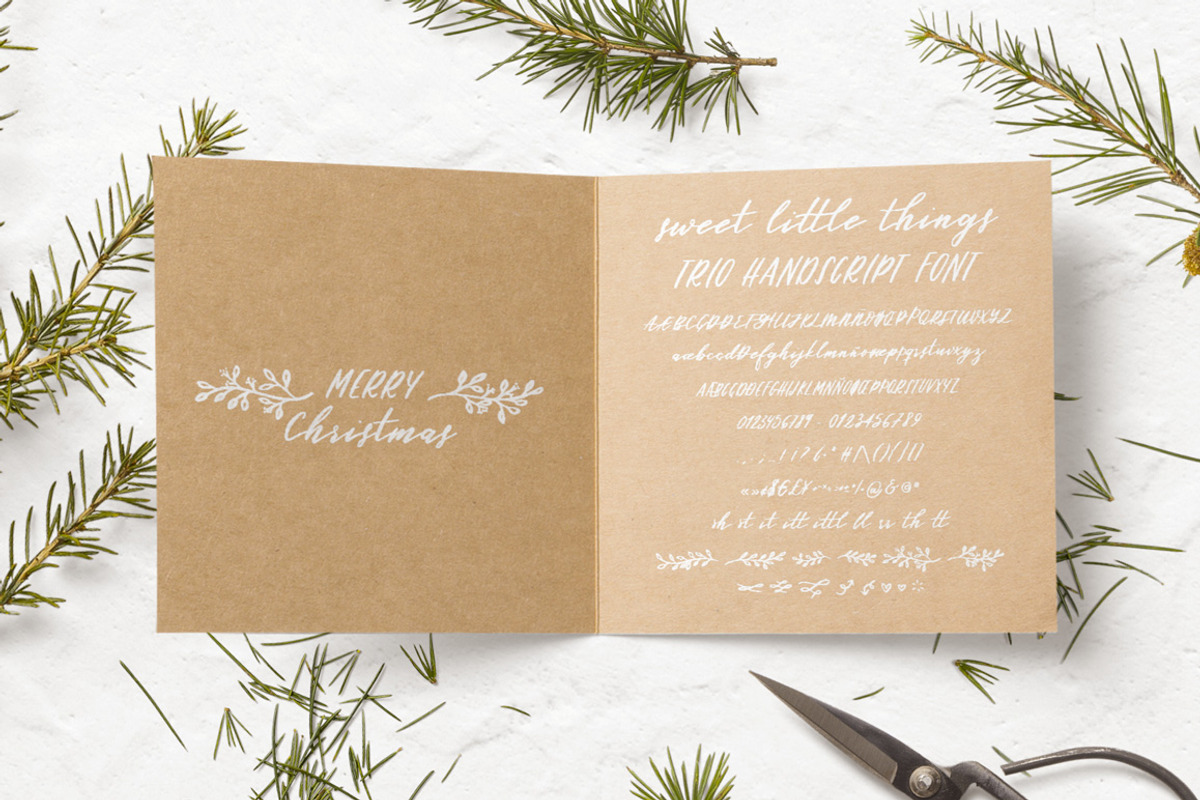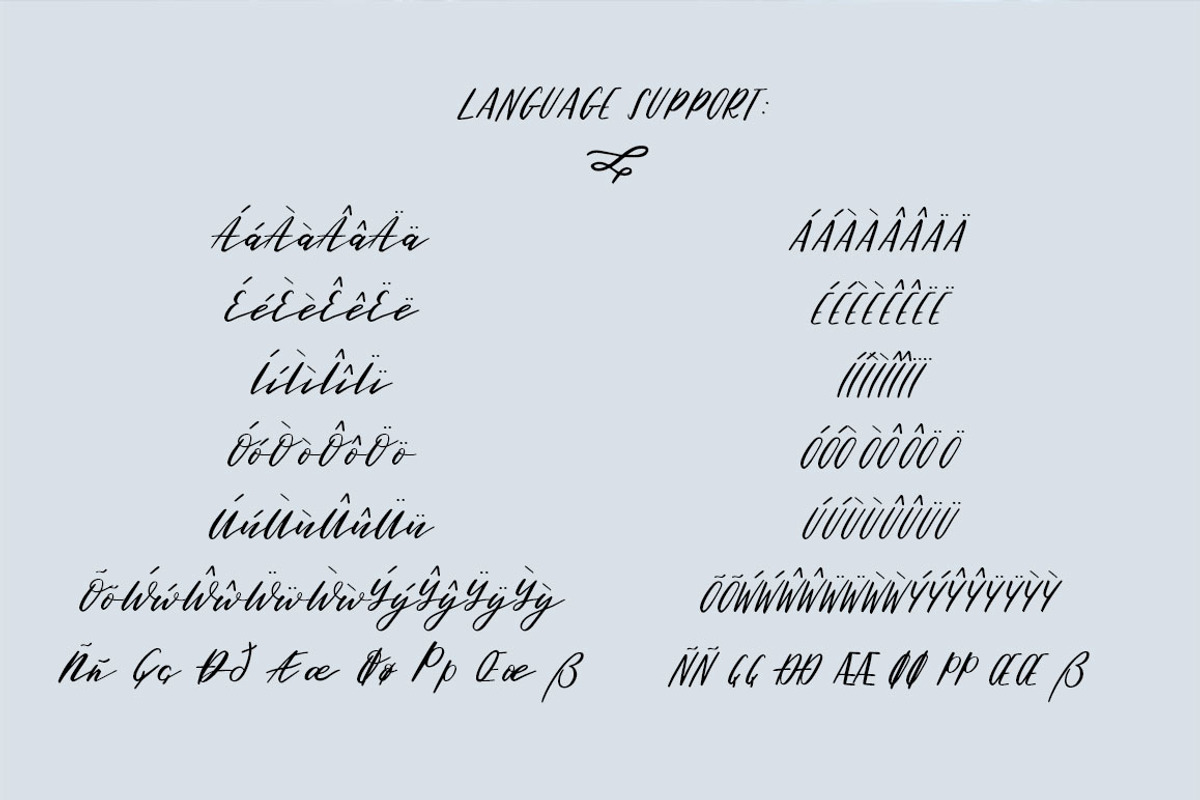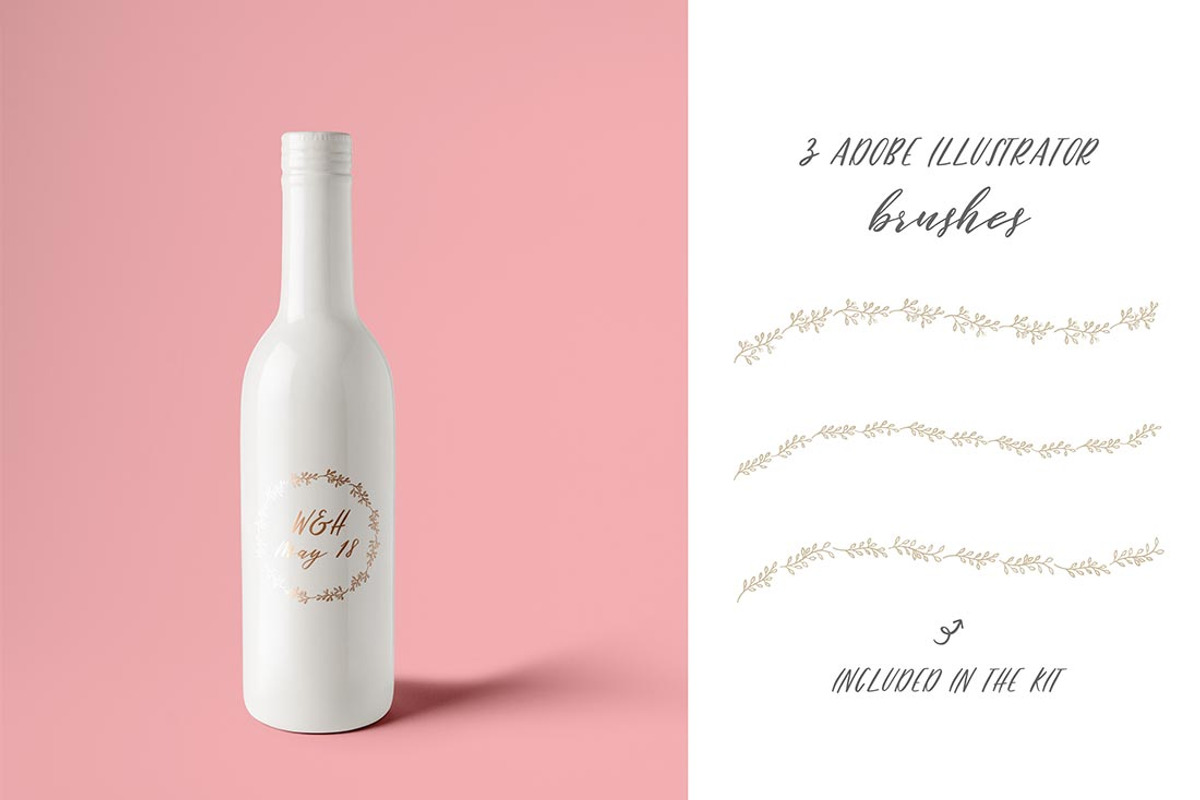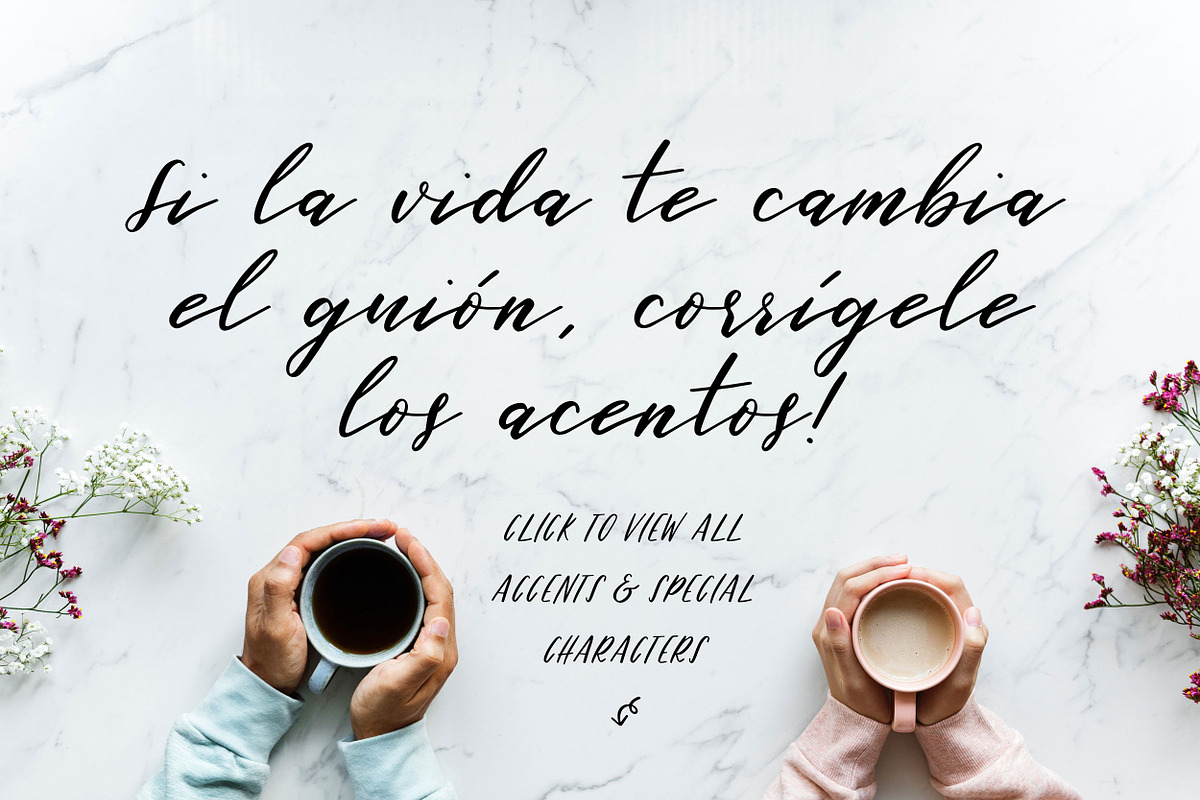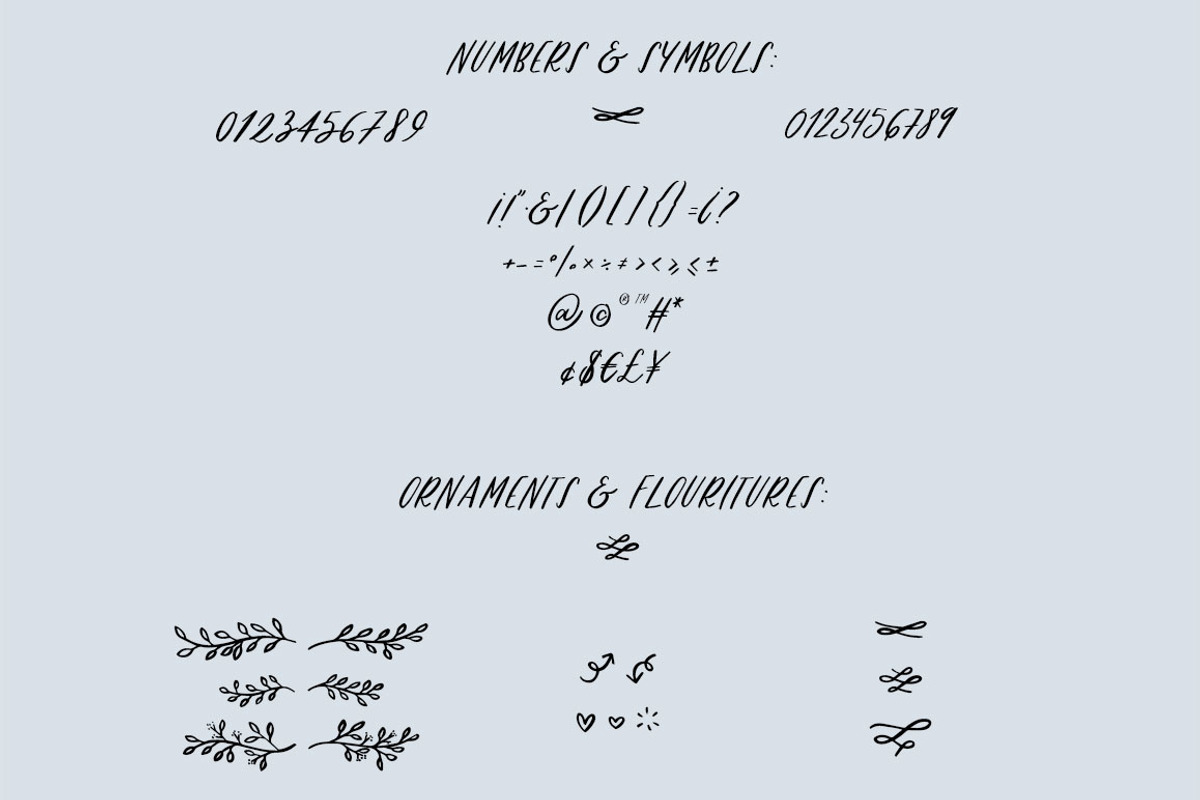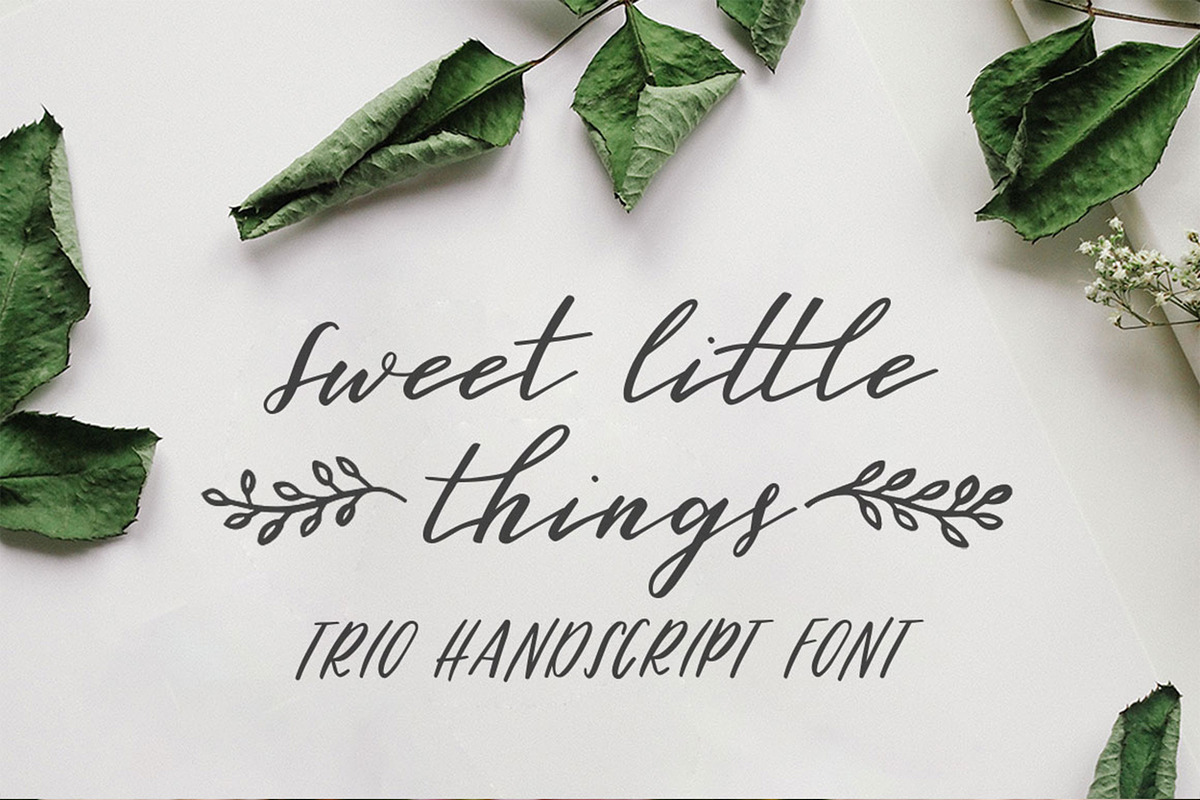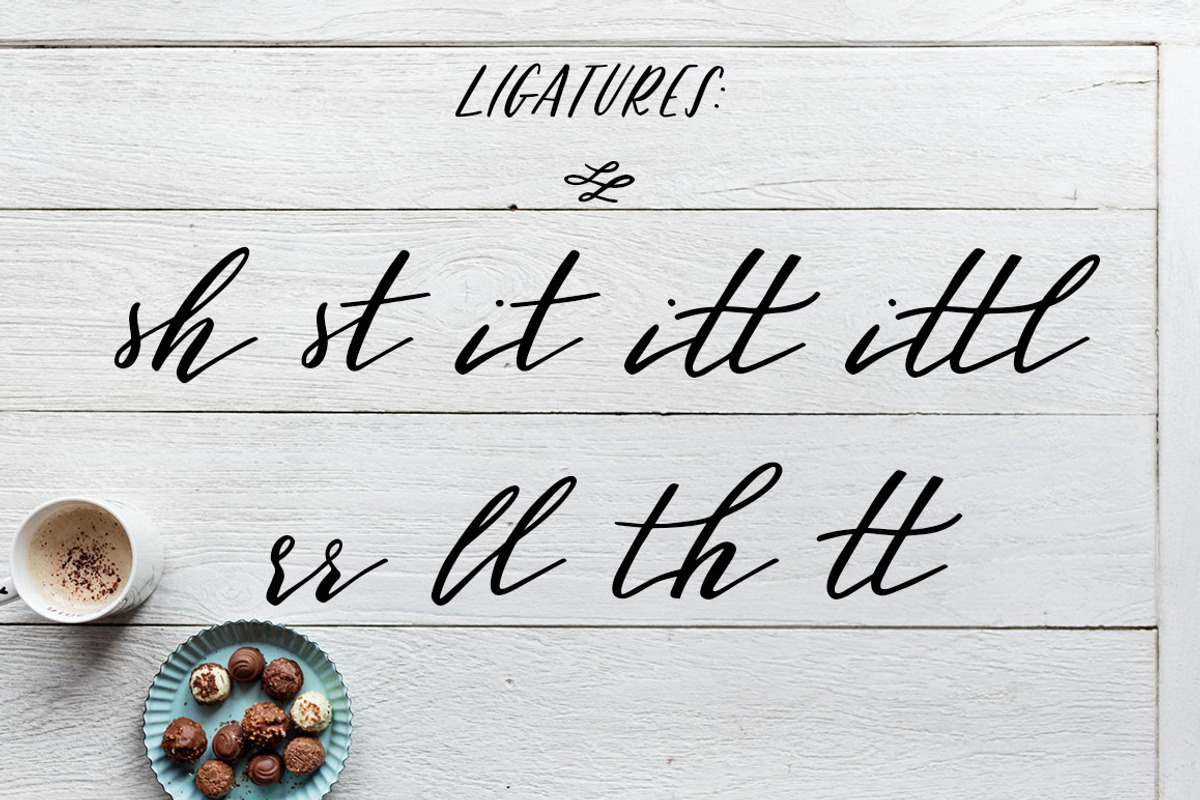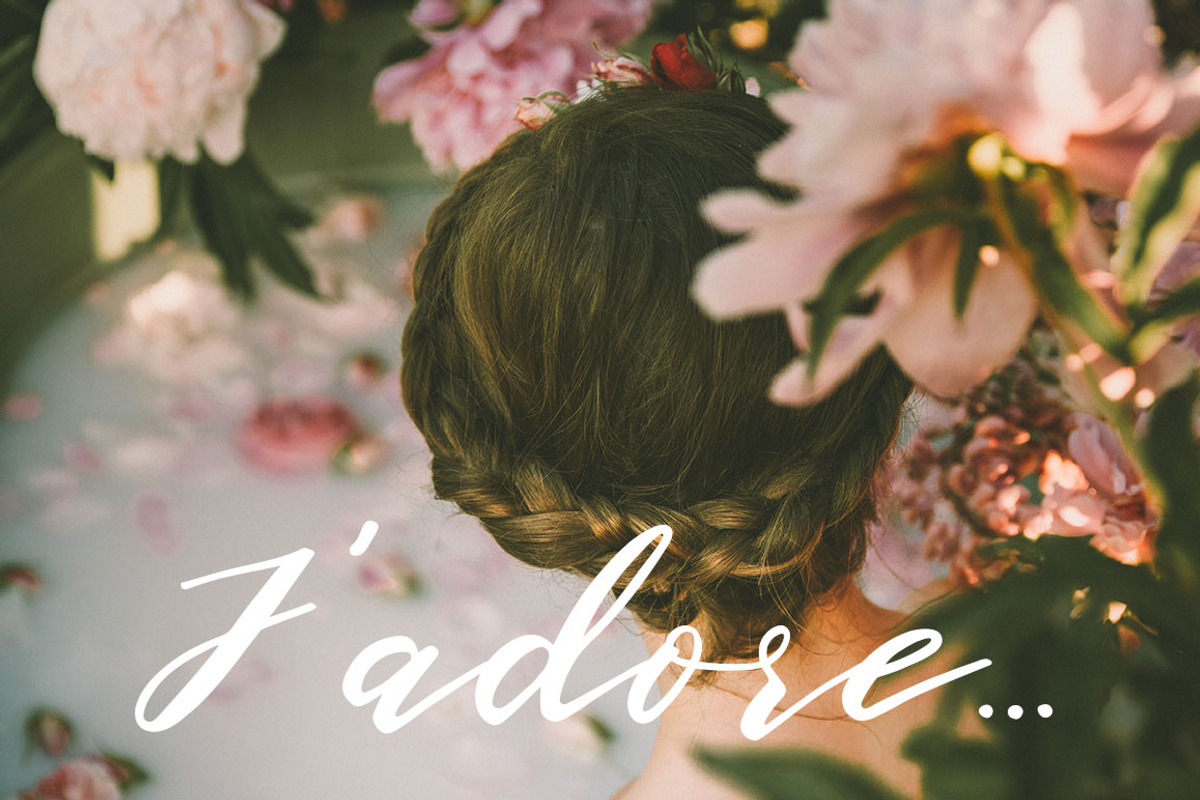
Sweet Little Things Script Font TRIO
Introducing Sweet little things, a beautiful new script font trio! Create gorgeous wedding invitations, quotes, logos, mood boards, and anything you wish with a delicate, romantic script font which has 3 styles: script, all caps and ornaments. You also get a bonus pack of 3 Adobe Illustrator brushes using the same font ornaments to use in your designs!
1. Sweet Little Things Script • A handwritten script font containing upper & lowercase characters, numerals, a large range of punctuation, accents and diacrytics and special carachters for languages such as danish, icelandic, spanish, catalan, french, etc. (TTF, OTF and web formats)
2. Sweet Little Things Sans Caps • A handwritten italic sans font to use in all caps, containing new numerals, and same range of punctuation, accents and diacrytics and special carachters for languages such as danish, icelandic, spanish, catalan, french, etc. It also includes ligatures. (TTF, OTF and web formats)
3. Sweet Little Things Ornaments • Hand drawn ornaments using the same brush and style as the main font, to combine in your designs and create beautiful and delicate results. Includes botanical wreaths, arrows, hearts and flourishes. (TTF, OTF and web formats)
BONUS • 3 vector Adobe Illustrator Brushes to create perfect wreaths using the botanical ornaments of the font. You can easily create any shape with them and change the color to match your design. I really love using these for wedding and logo designs.
- Includes botanical wreaths, arrows, hearts and flourishes.